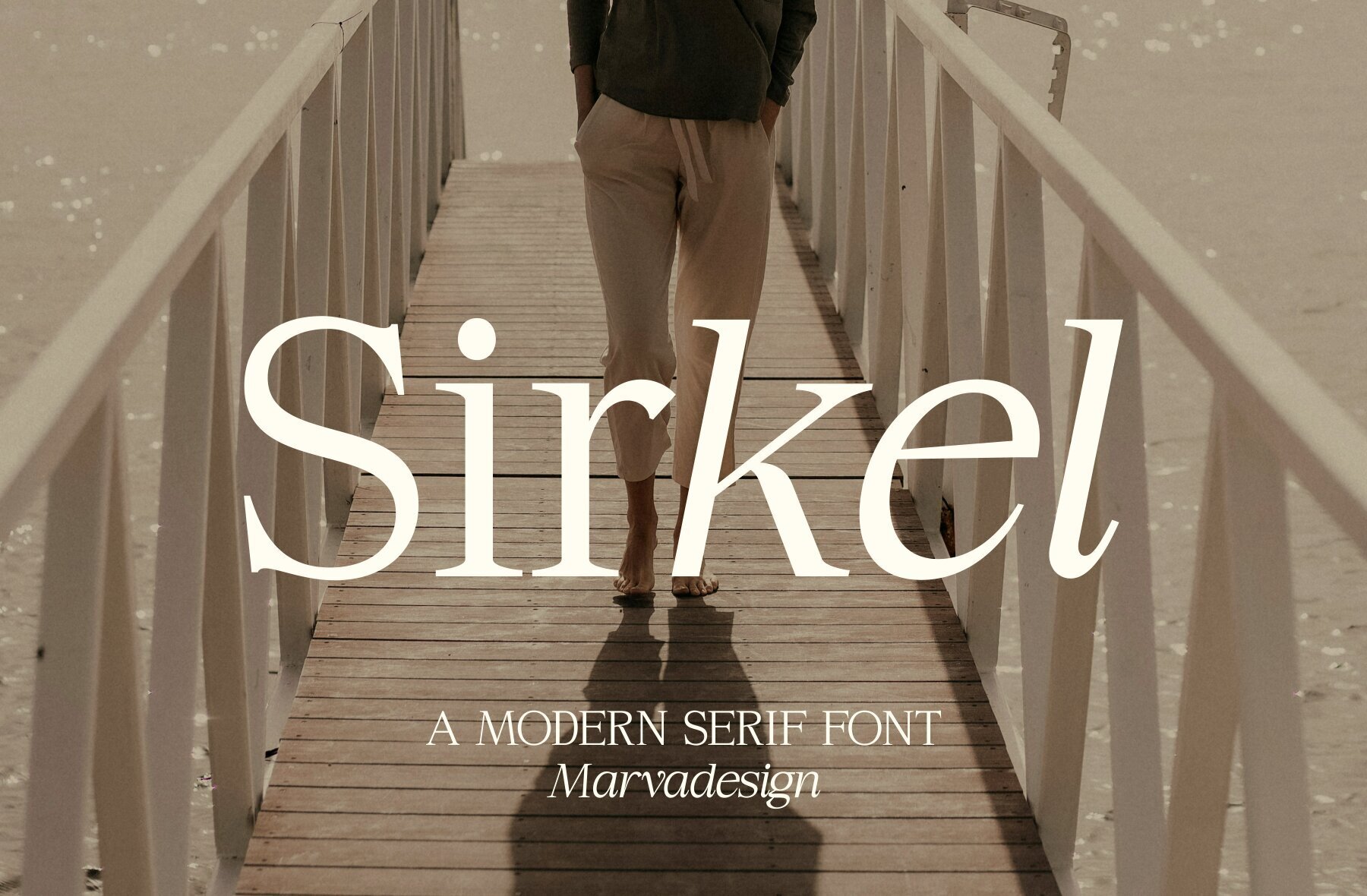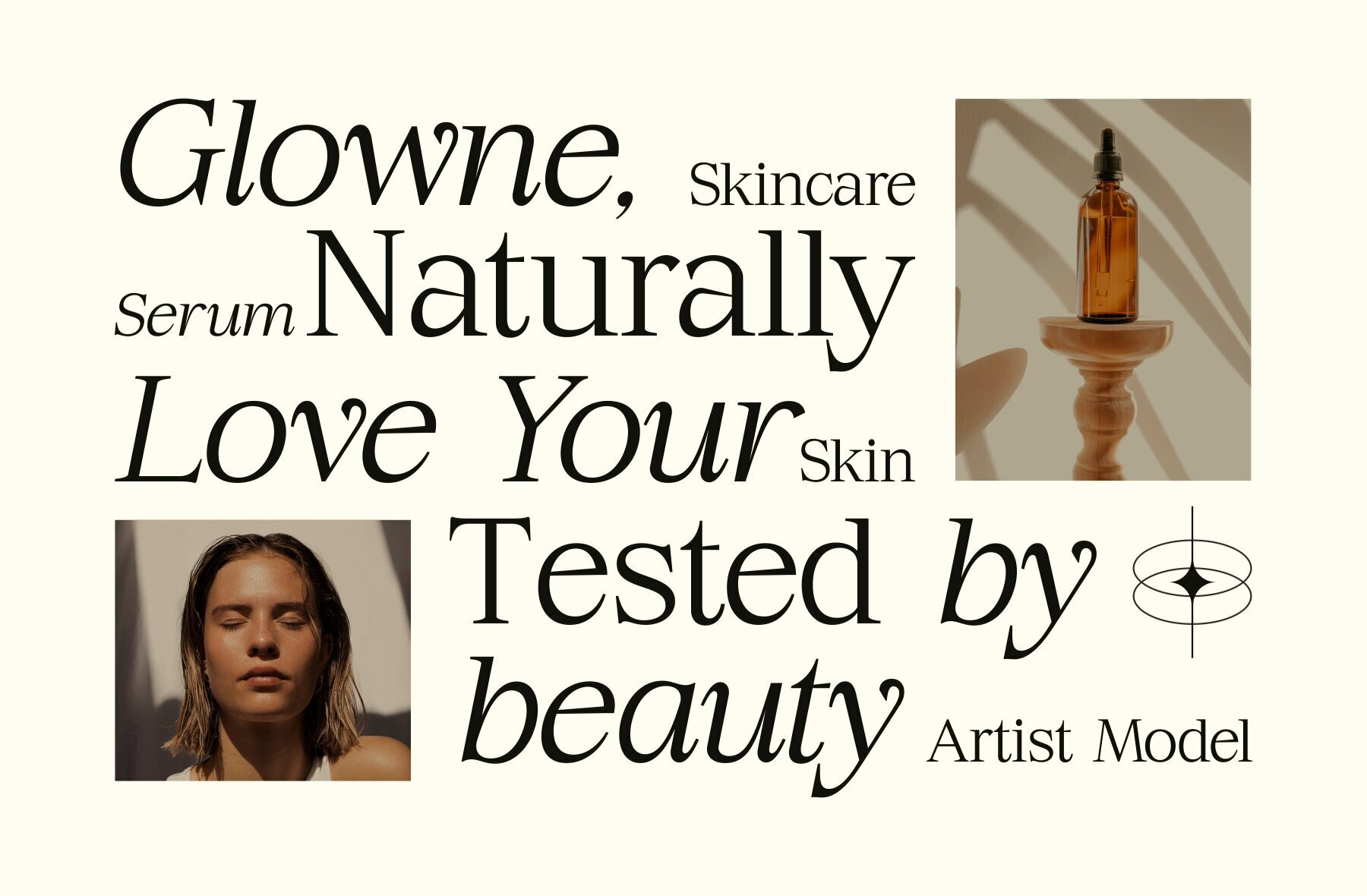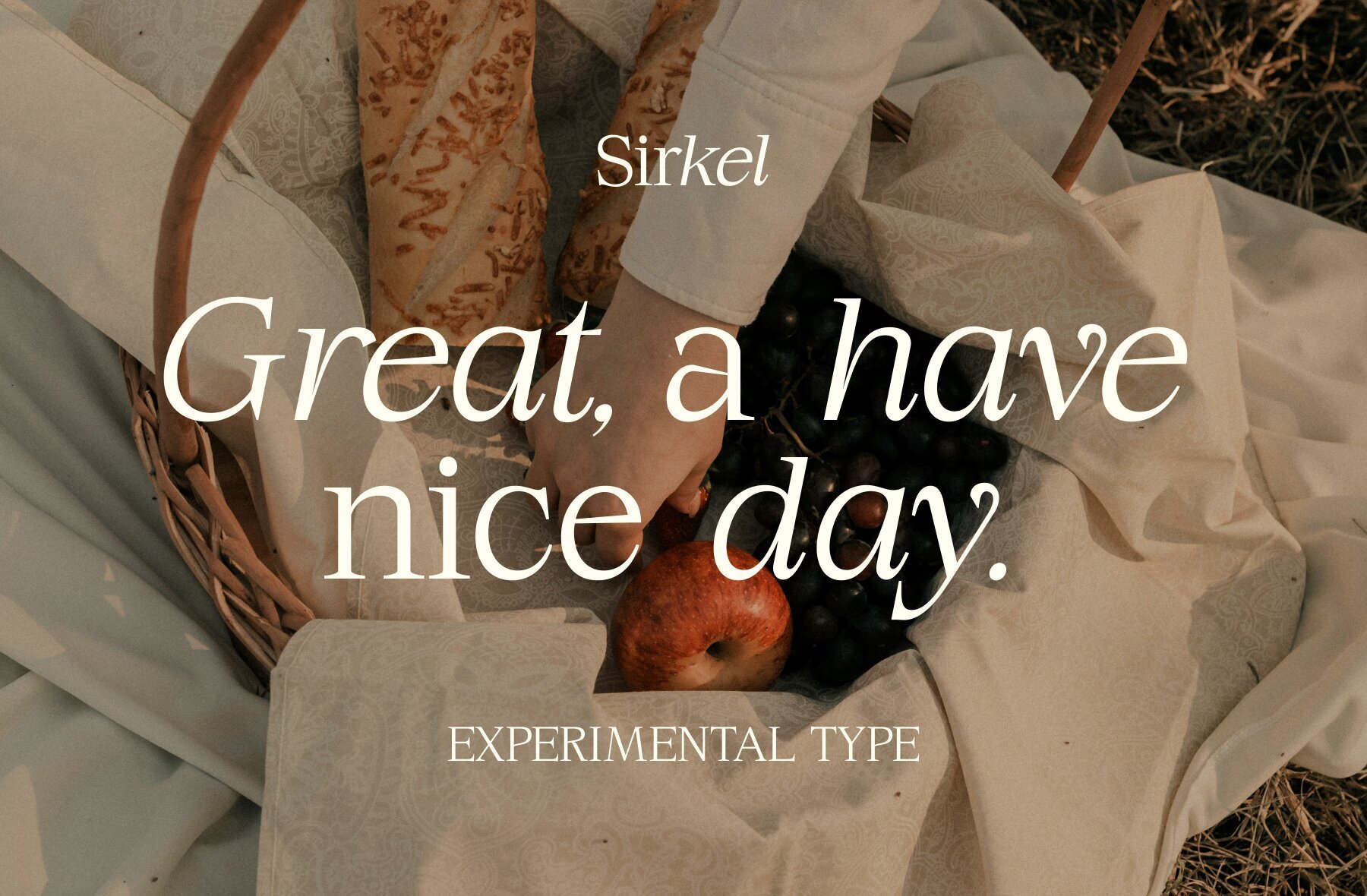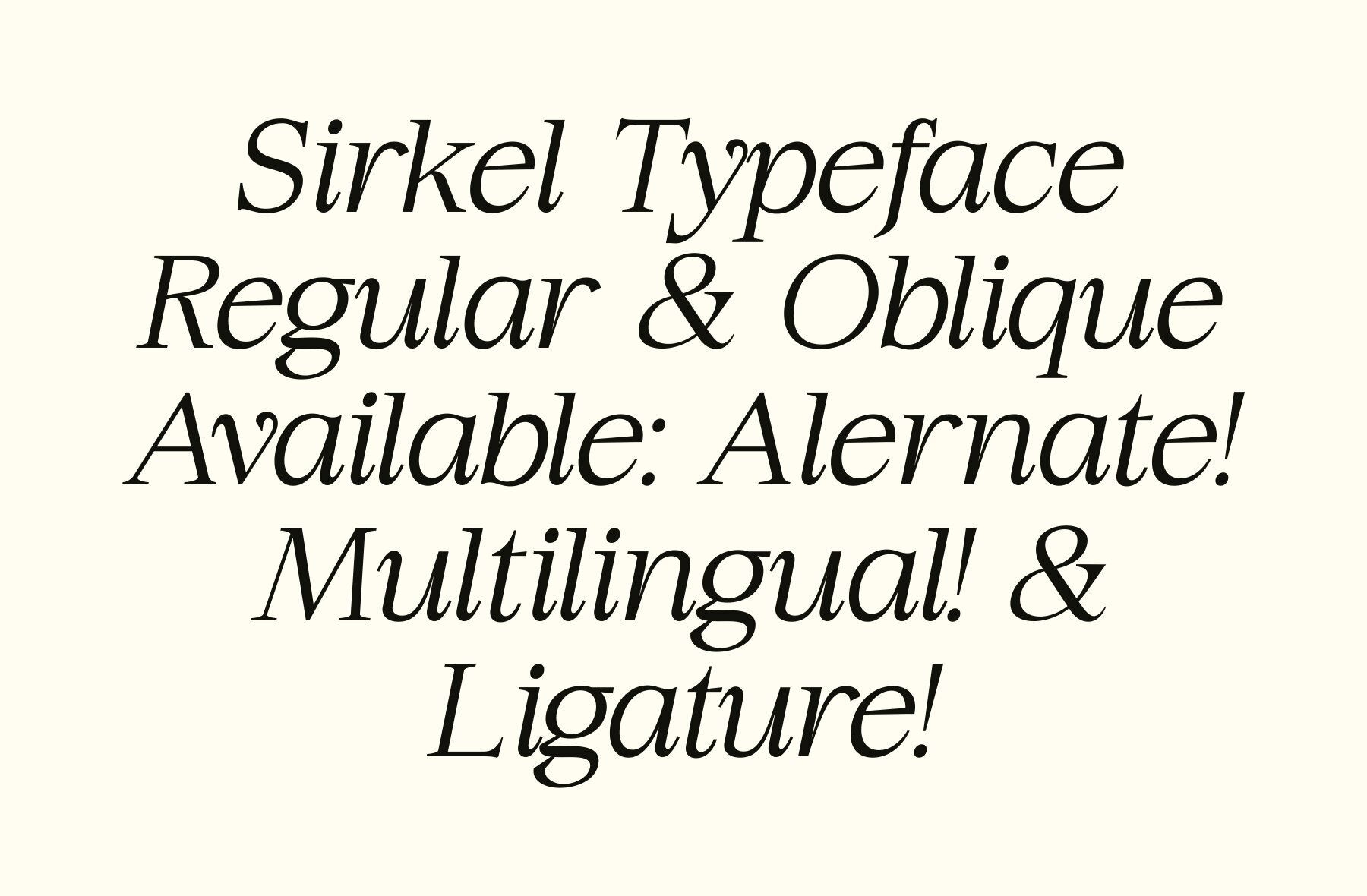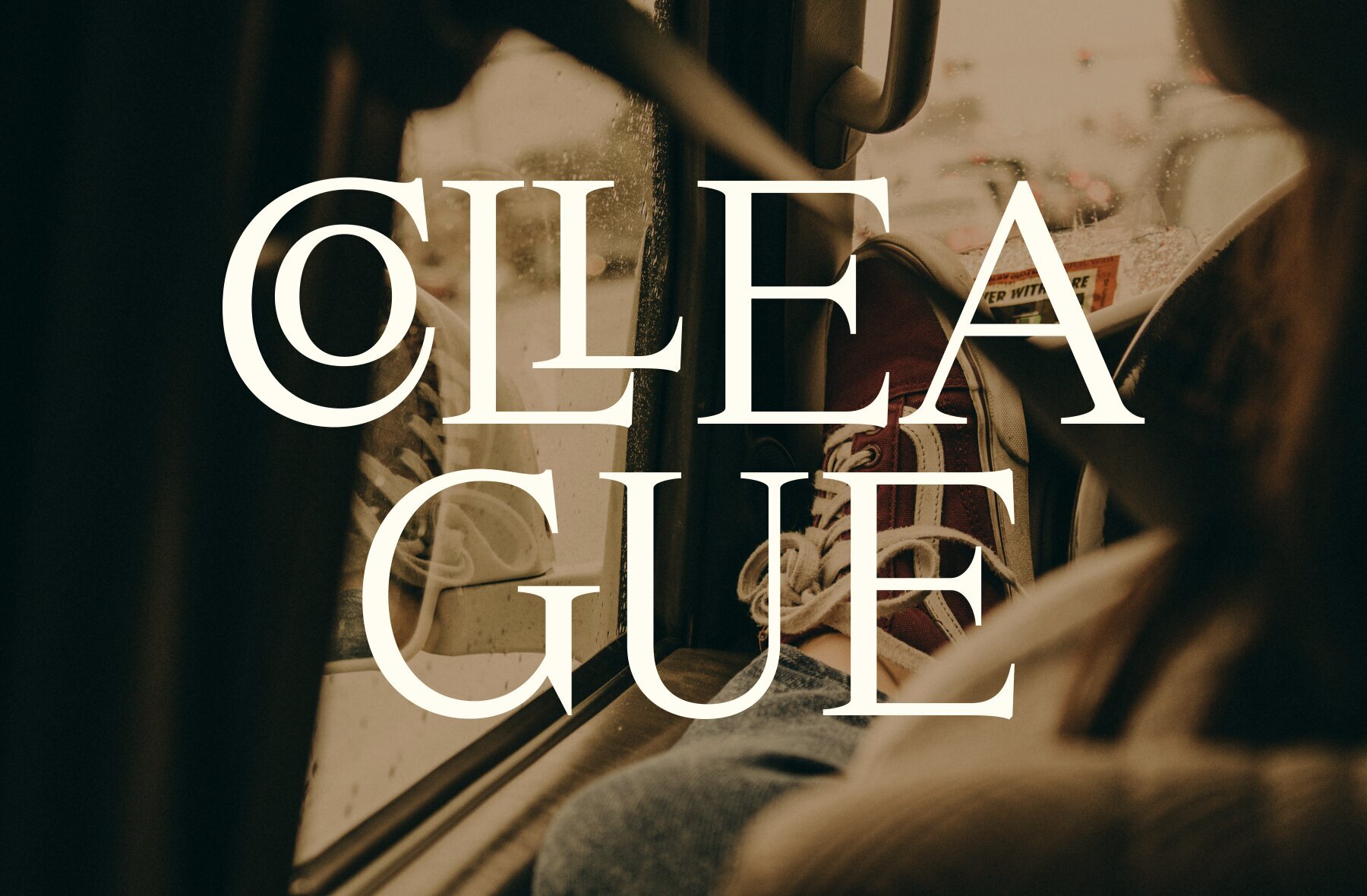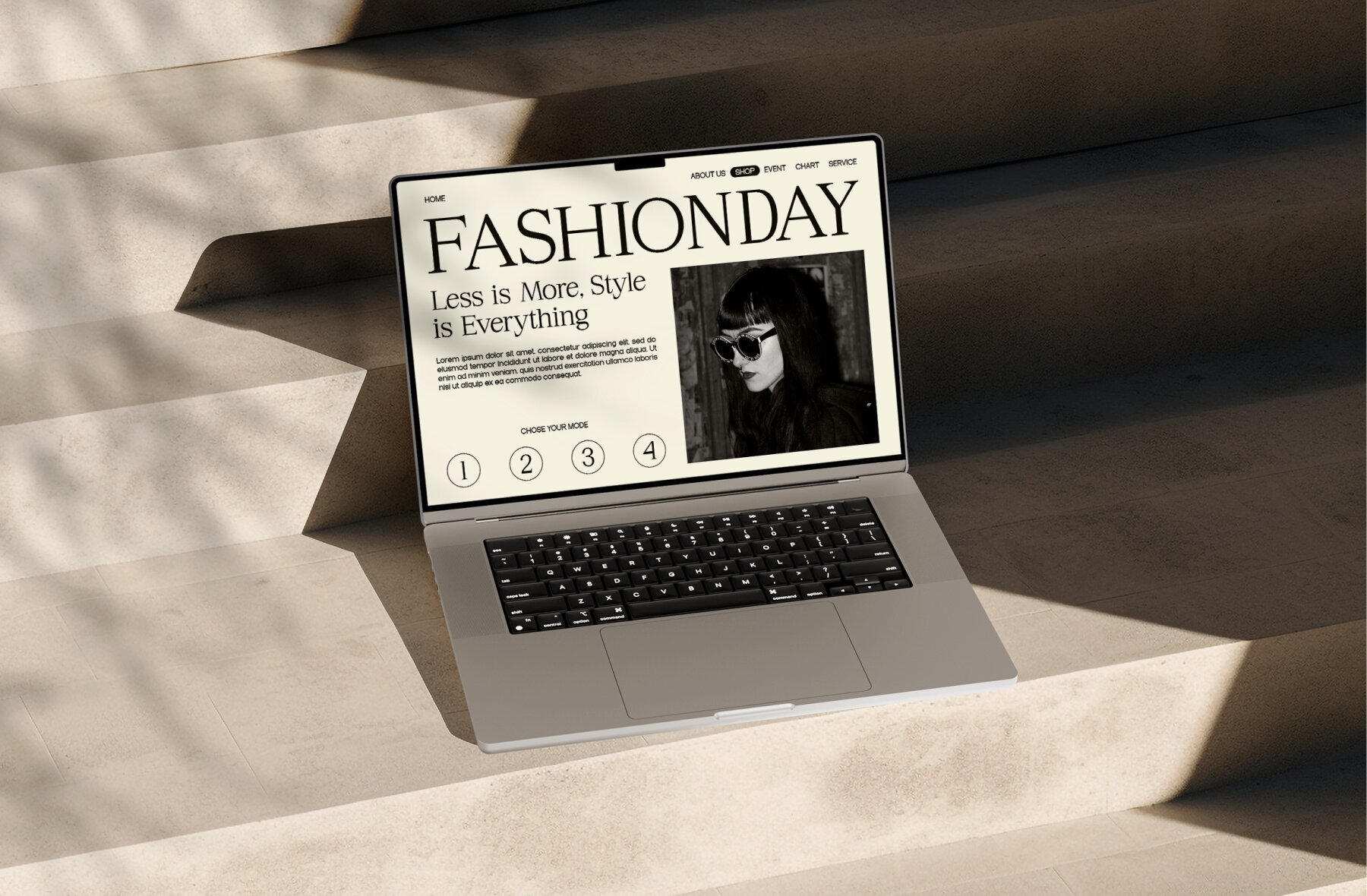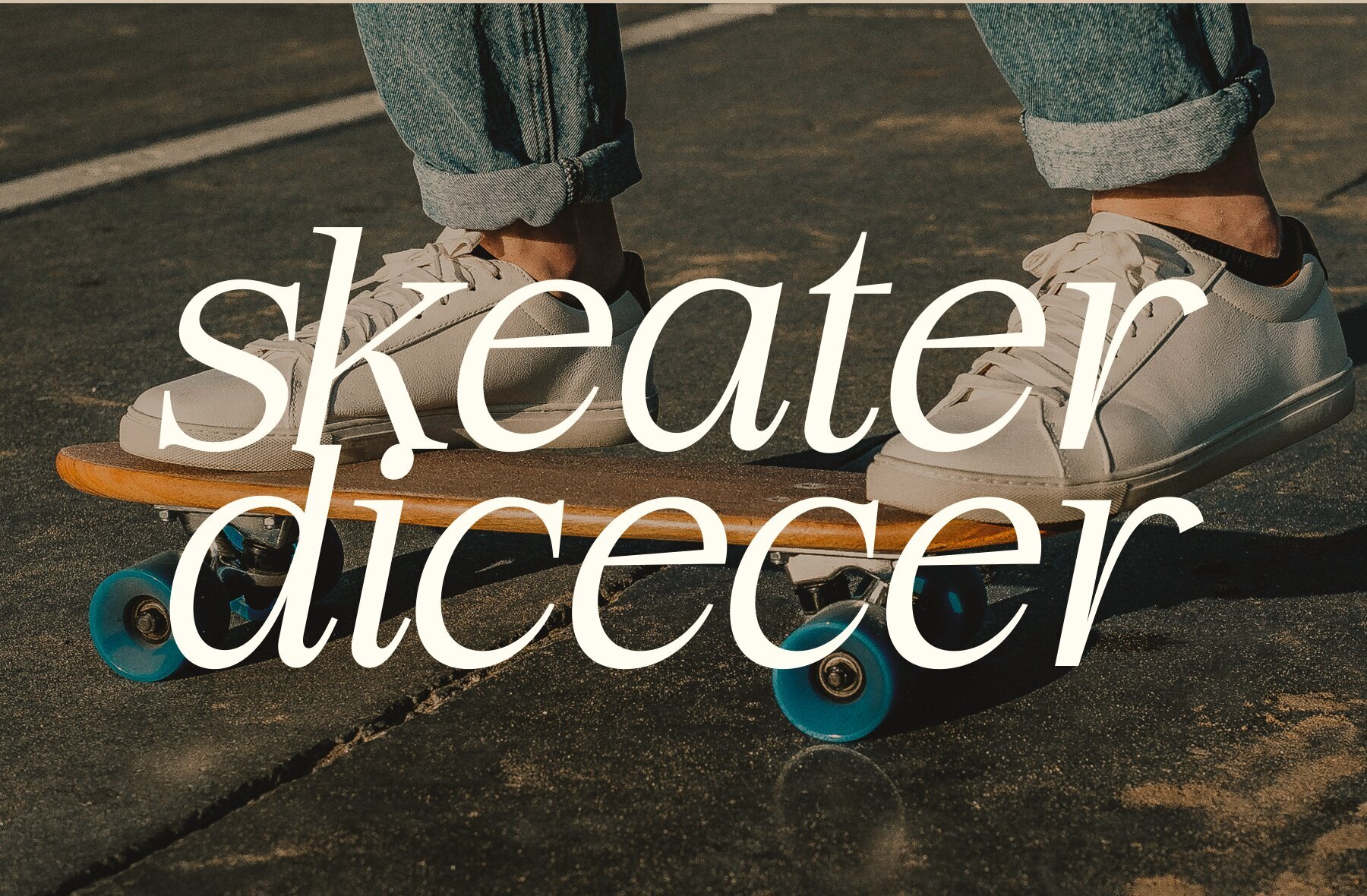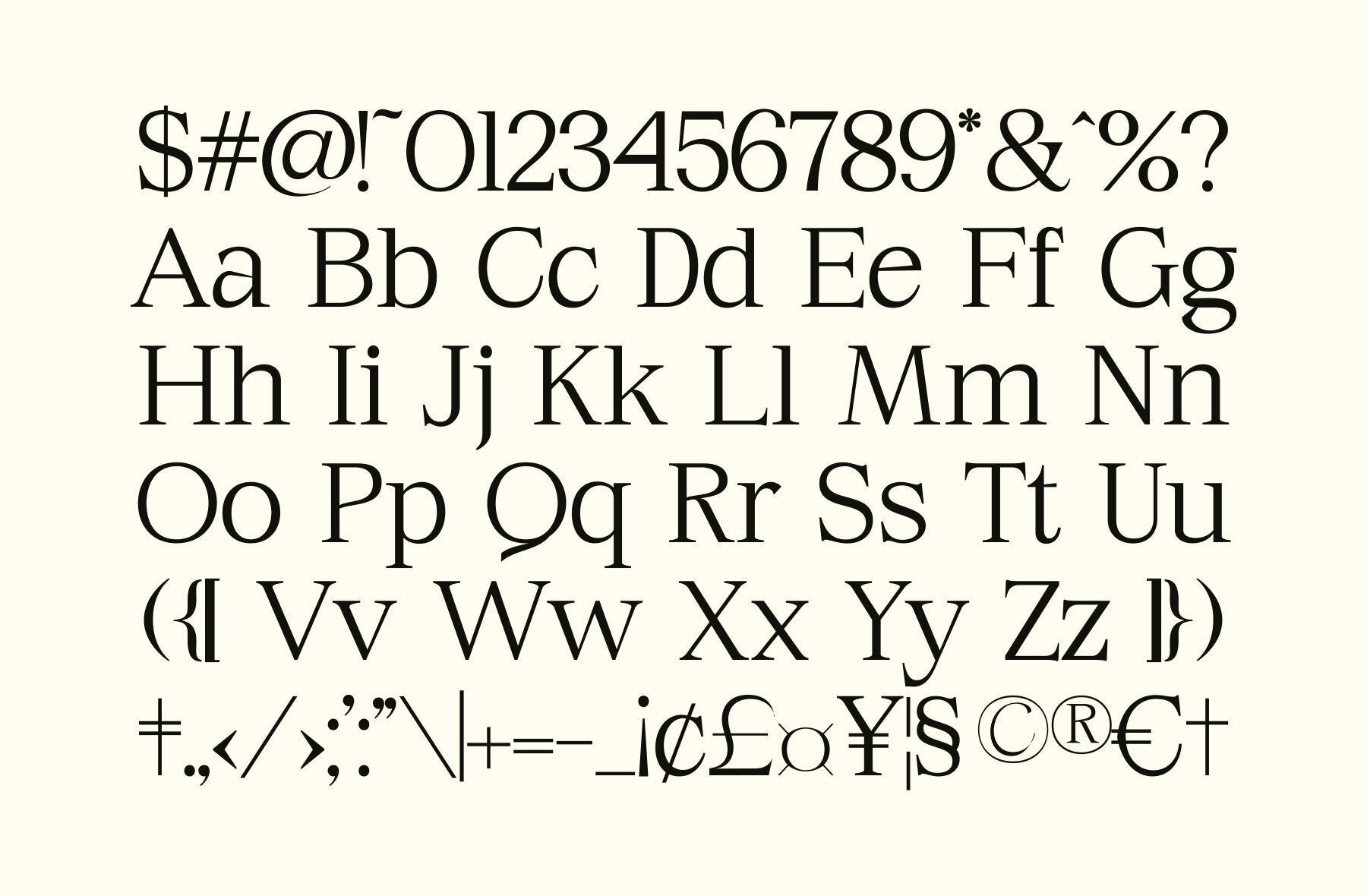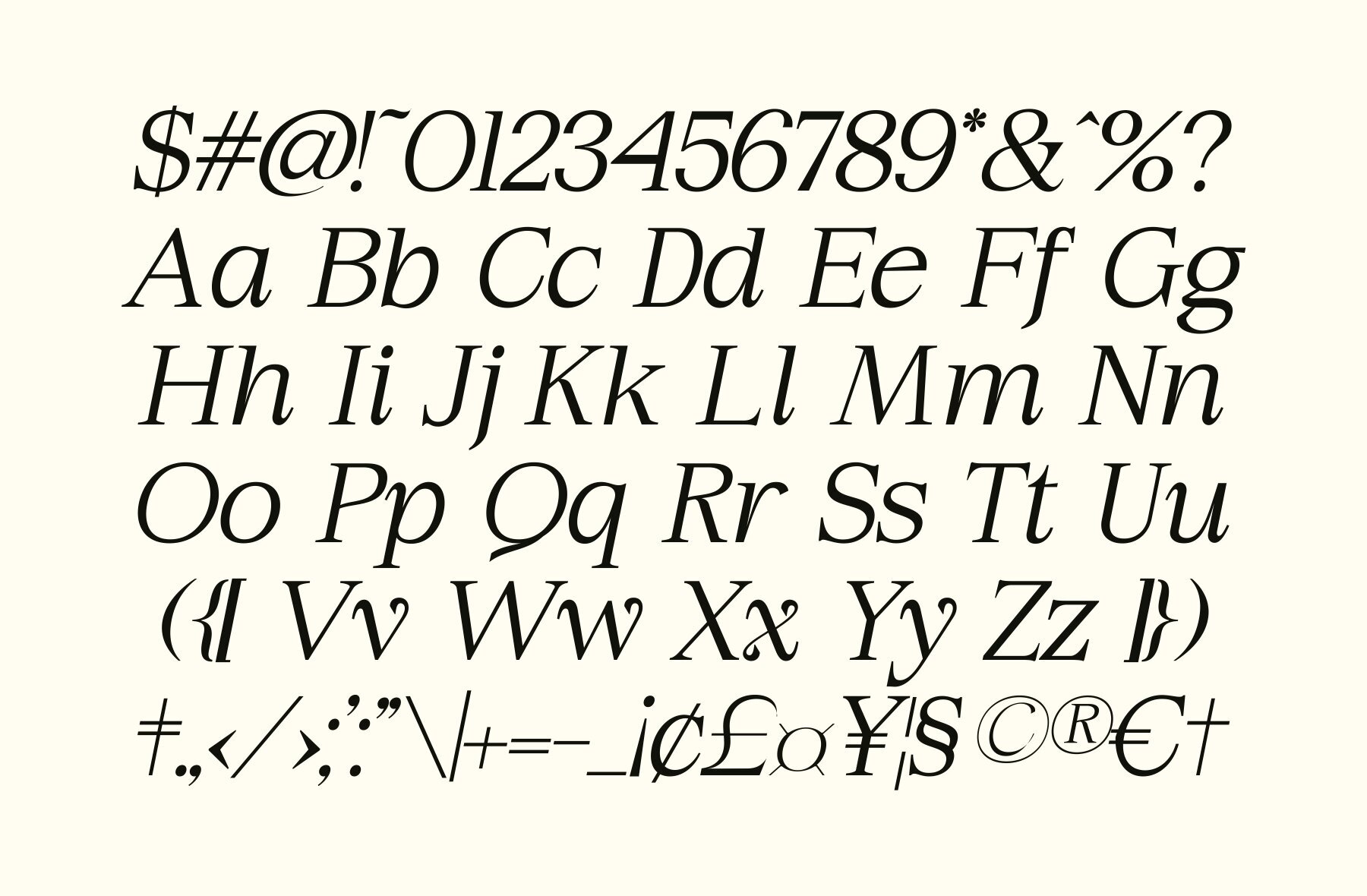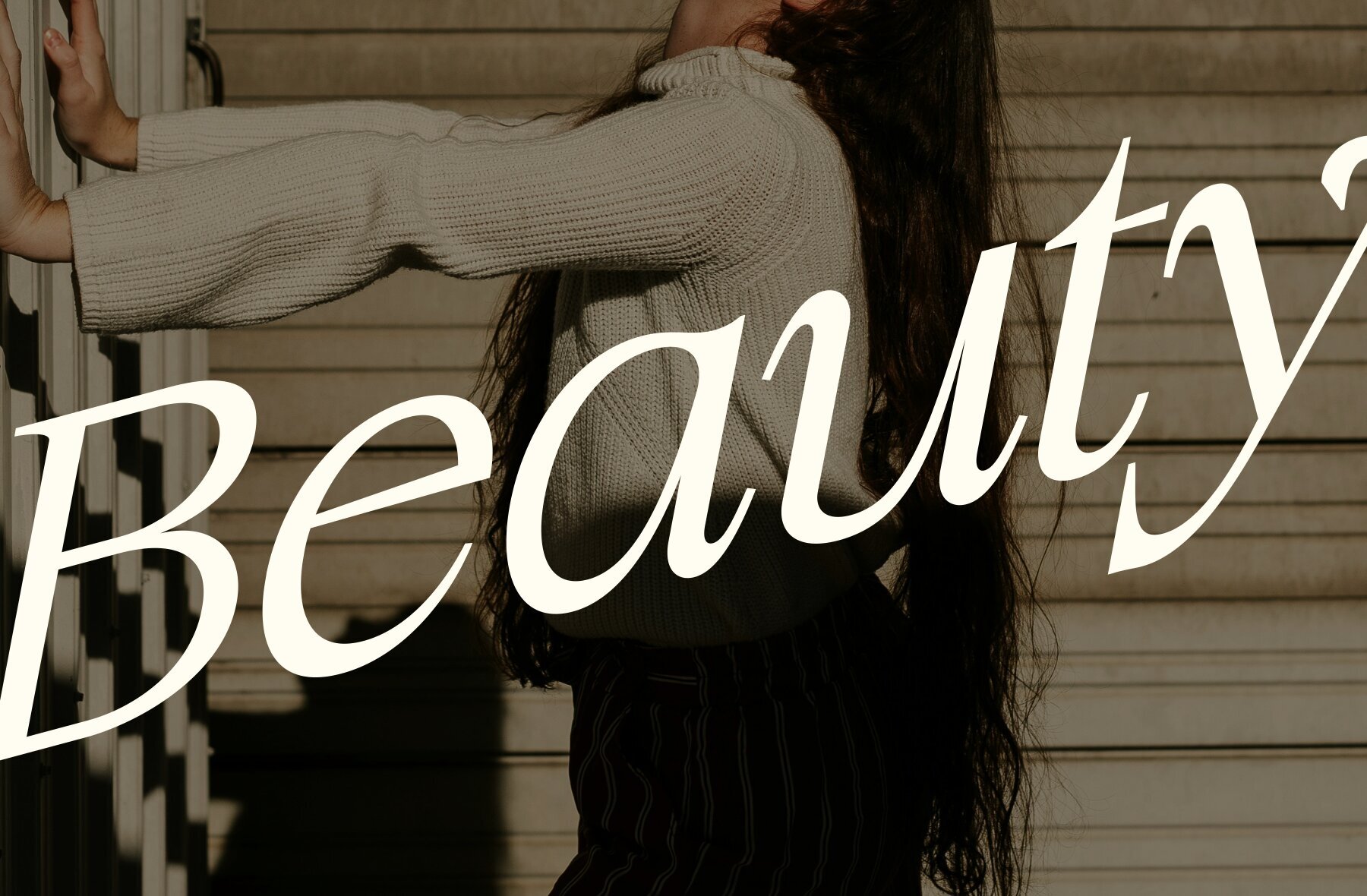
Sirkel Font
Introducing Sirkel is a sophisticated typeface that embodies elegance and minimalism, available in both Regular and Italic styles. Its clean, balanced lines offer a modern aesthetic, making it a versatile choice for a range of design applications. The font’s graceful curves and geometric precision deliver a refined look, appealing to those who seek simplicity without compromising on style. What sets Sirkel apart are its unique ligatures and alternate characters, which add a subtle yet distinctive flair to the typeface. These special features introduce a layer of creativity, offering designers the flexibility to enhance visual compositions while maintaining the font's minimalist essence. Sirkel's blend of elegance and minimalism makes it an ideal choice for projects that require a balance of sophistication and understated design.